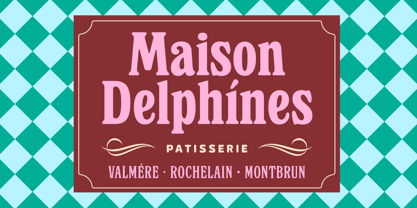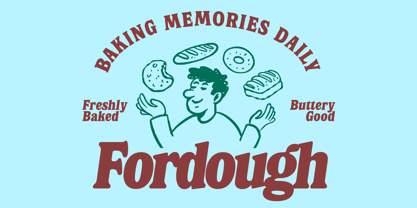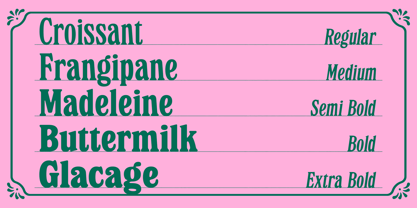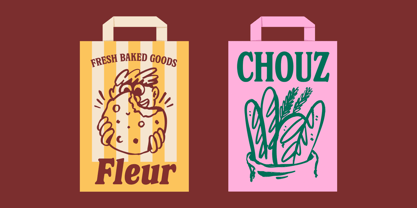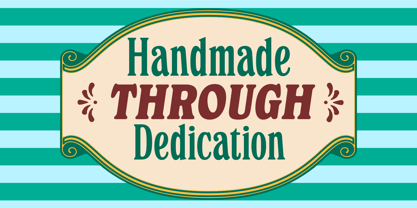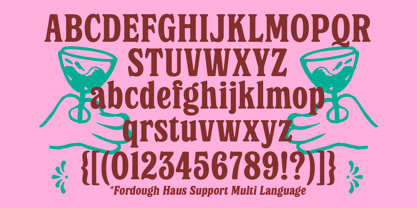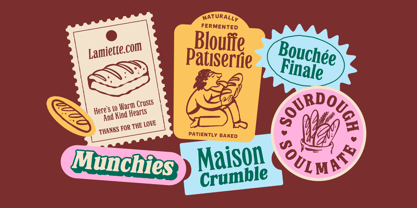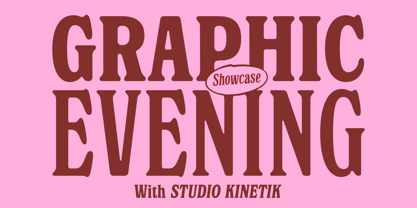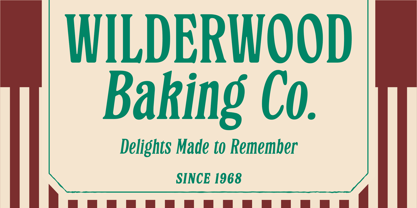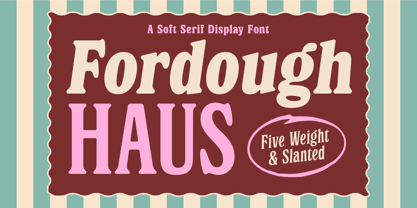
Fordough Haus
The Fordough Haus Font Family was designed by Bagas Ferdiansah, Septianto Nugroho and published by The Native Saint Club. Fordough Haus contains 10 styles and family package options. More about this family
Fordough Haus, a soft and sweet Serif that’s perfect for vintage bakery branding, café logos, menu posters, packaging labels, and editorial projects that need a fully featured font. Comes with 5 Weights and Slanted Styles, ready to make your designs pop with a playful, and fun feel.